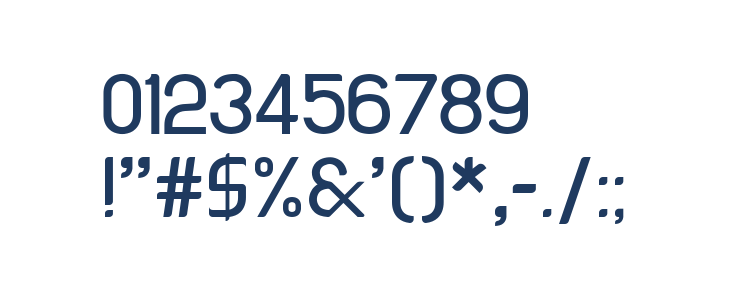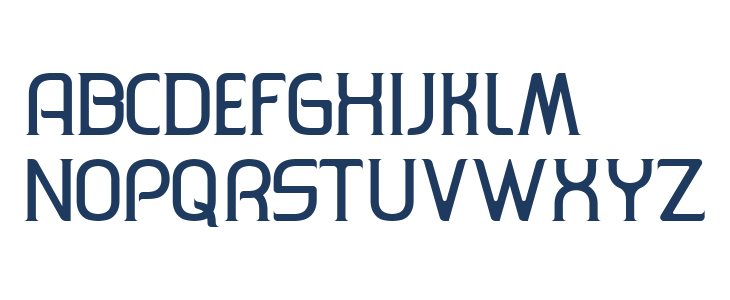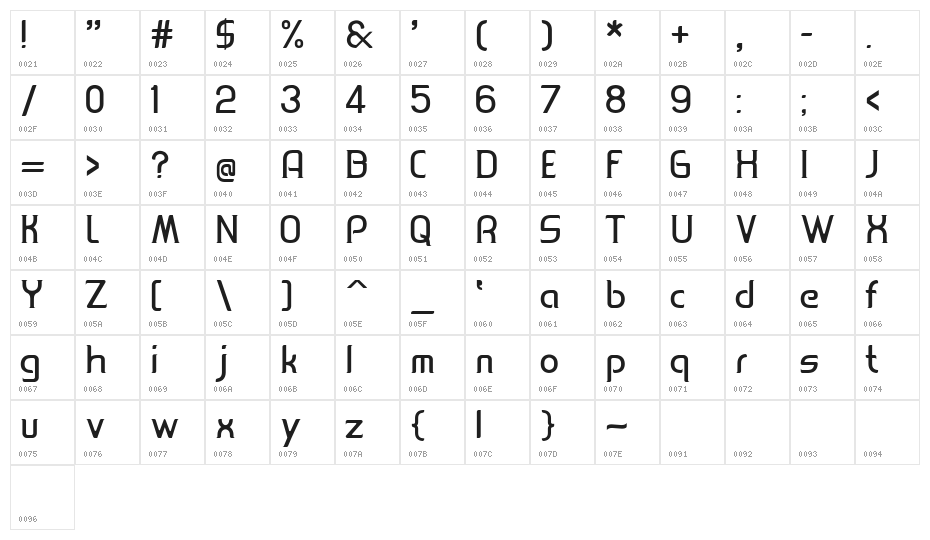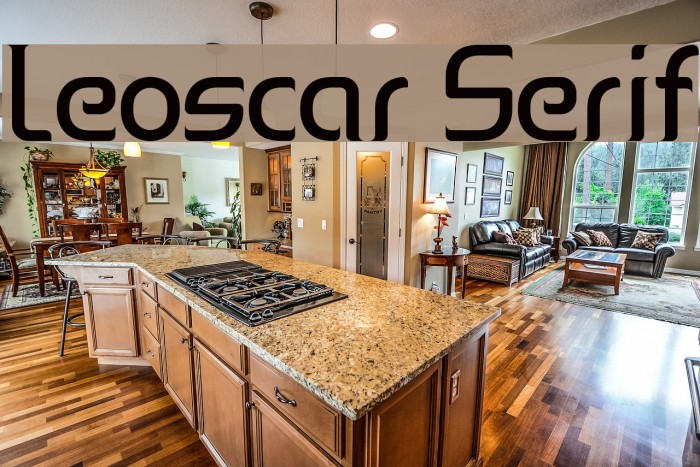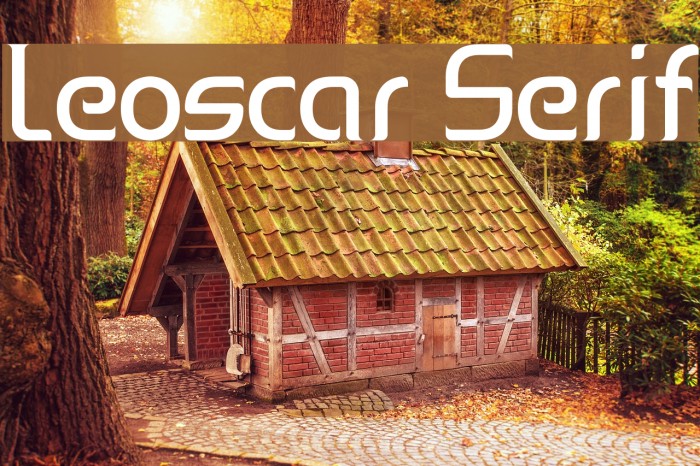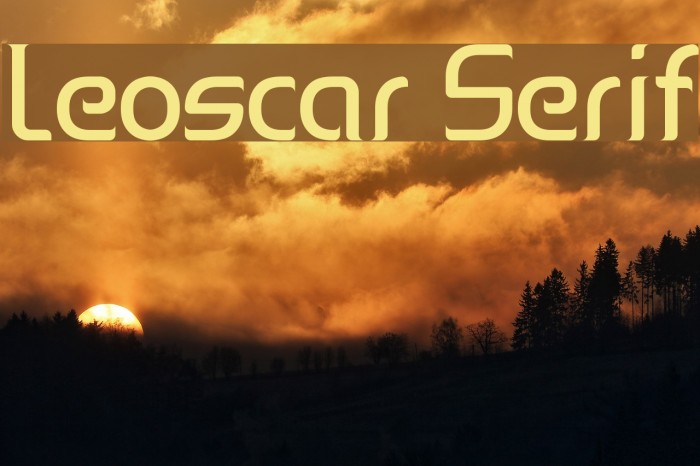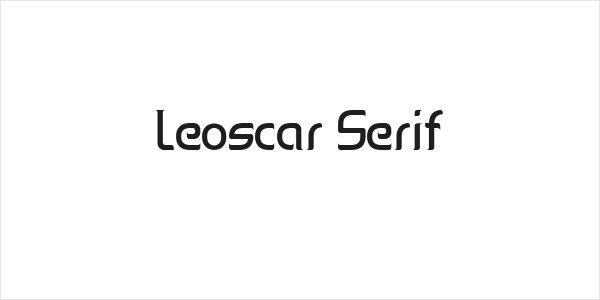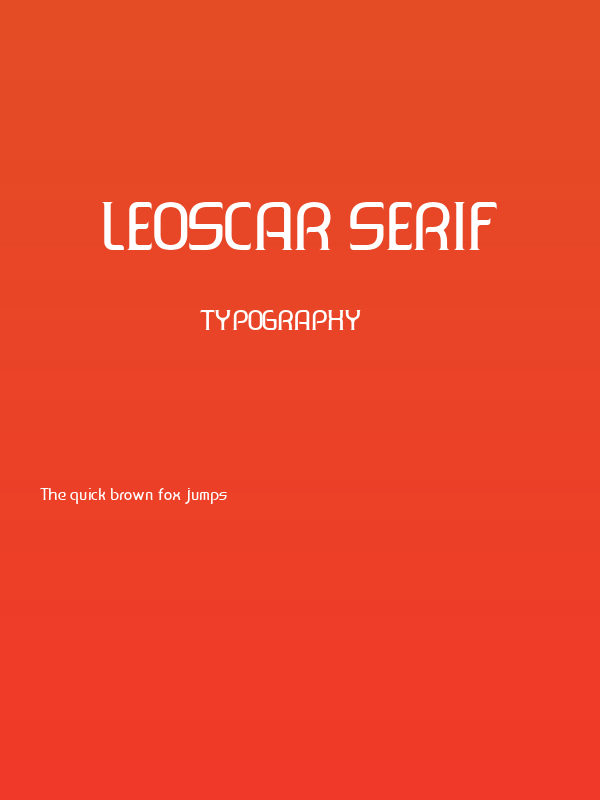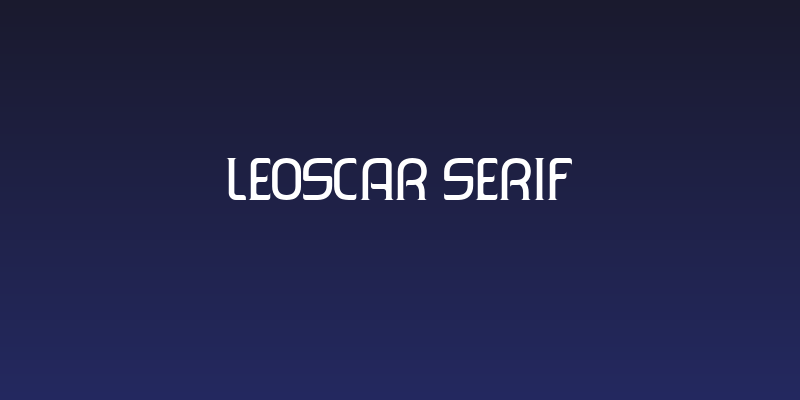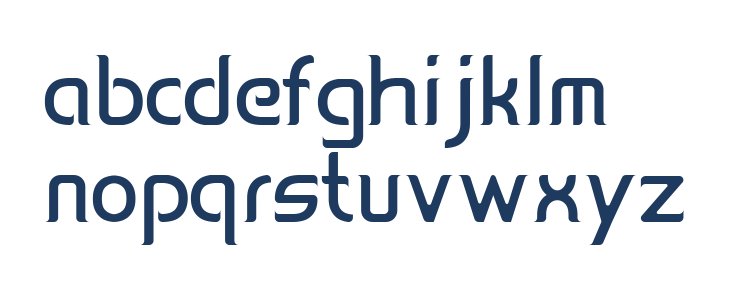
Leoscar Serif Font
Leoscar Serif Description
This font features a modern and geometric design with a distinct, futuristic flair. The characters are crafted with a uniform stroke width, giving it a clean and structured appearance. The uppercase letters have a unique angularity, while the lowercase letters maintain a rounded, smooth form. The numerals and special characters are consistent with the overall style, ensuring readability and a cohesive look. This font is versatile, suitable for both digital and print media, and can be used to create a contemporary and professional aesthetic.
Use CaseHeadlines, Logos, Digital Interfaces
Proposed ProjectsIdeal for technology branding, modern advertising, website headers, and digital interfaces.